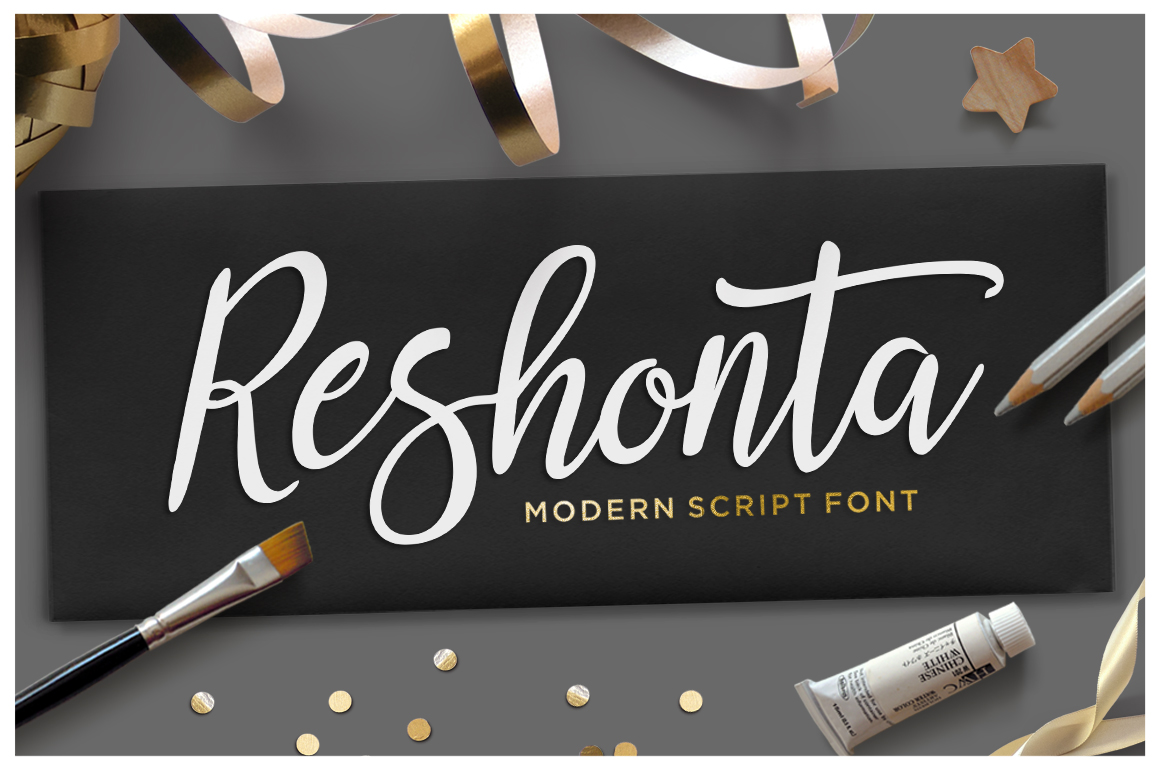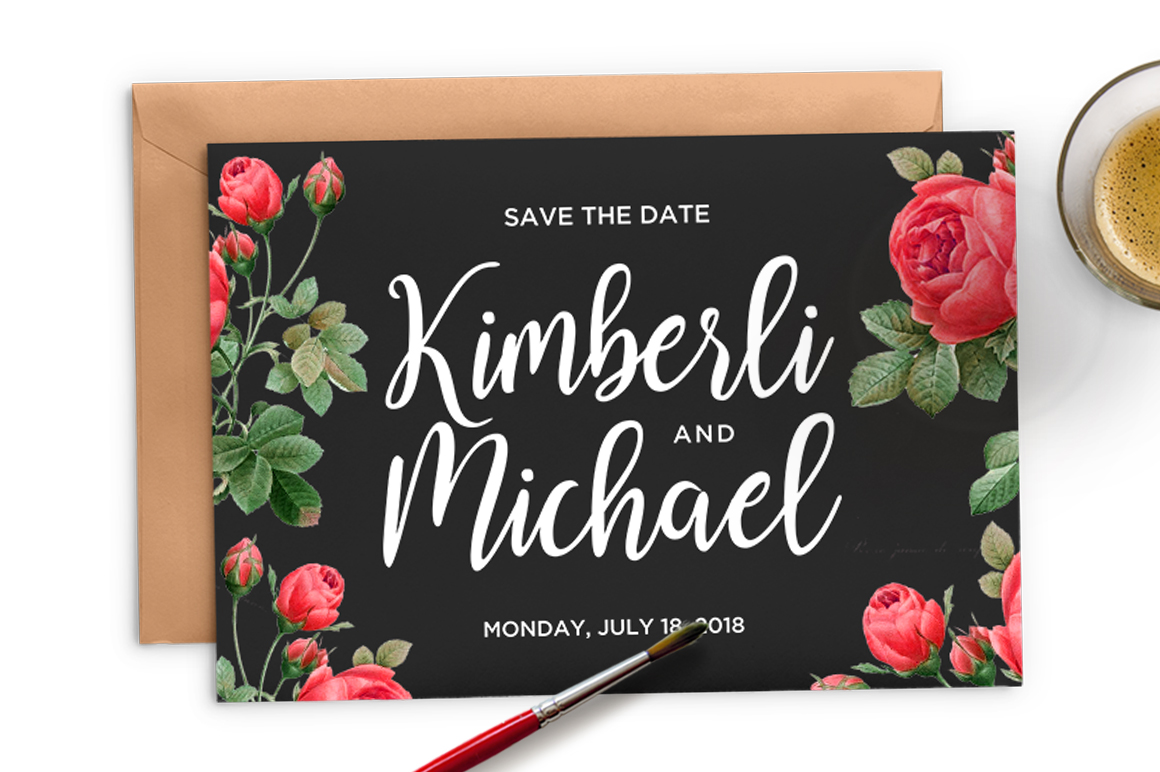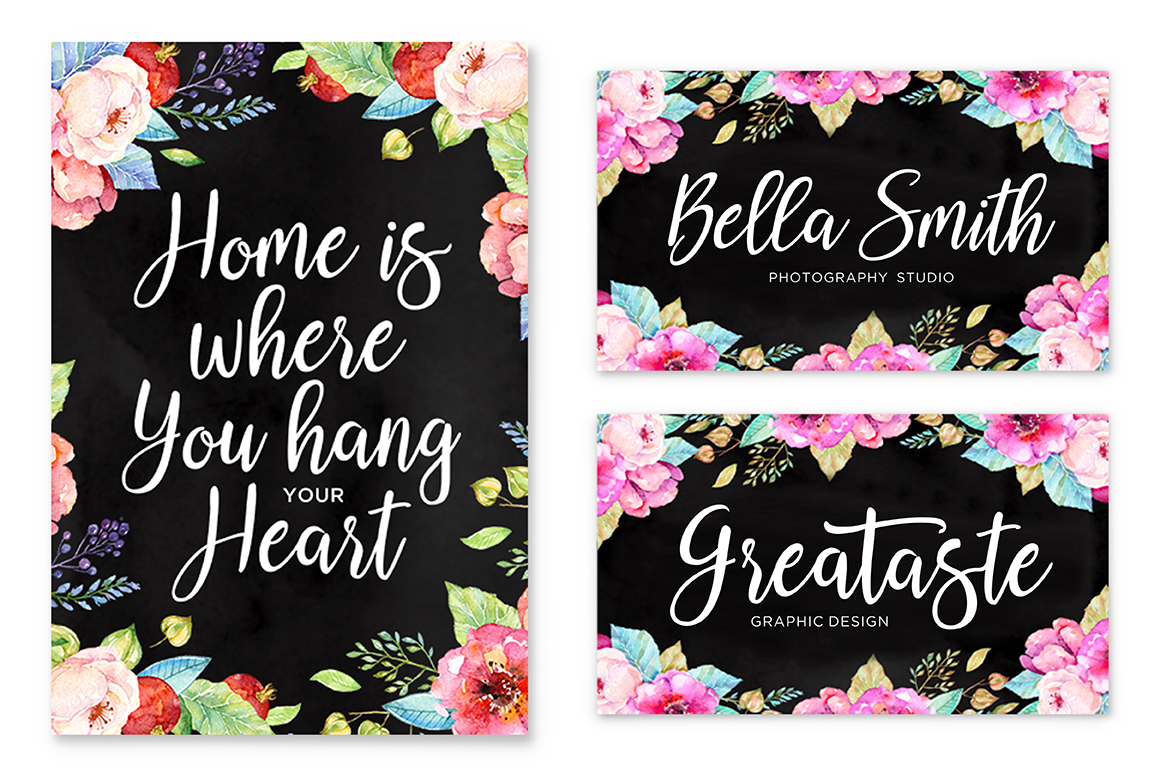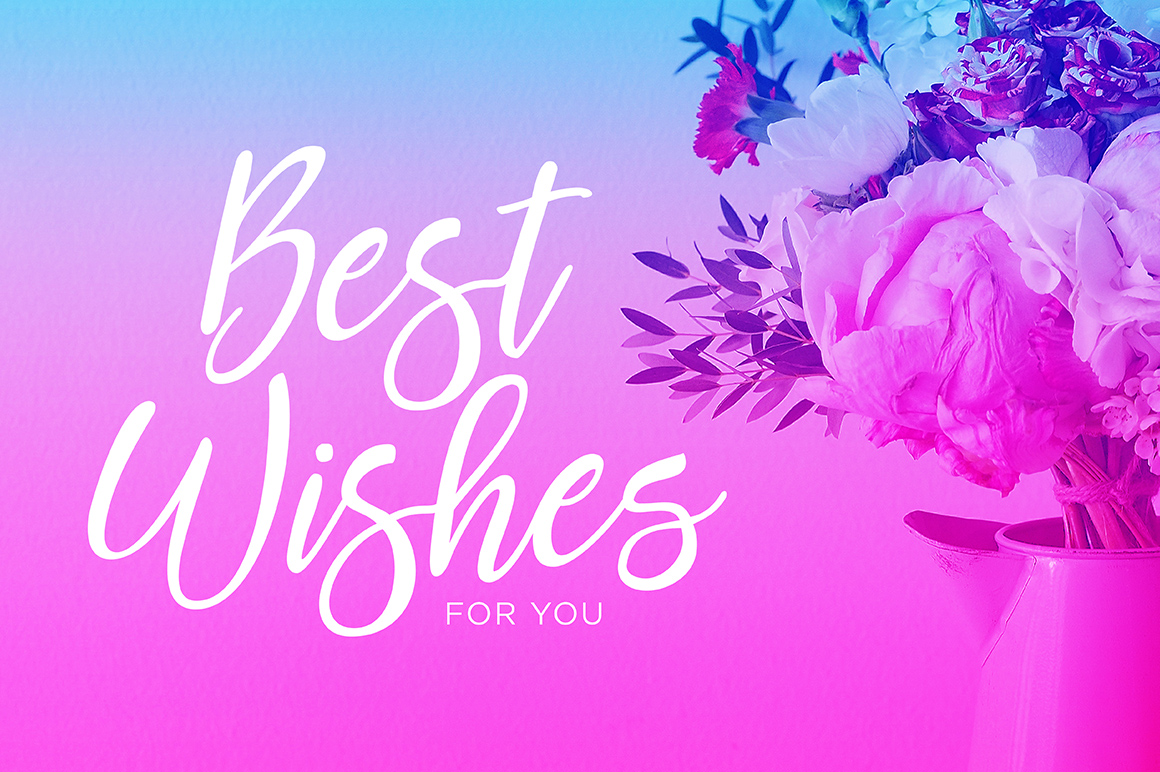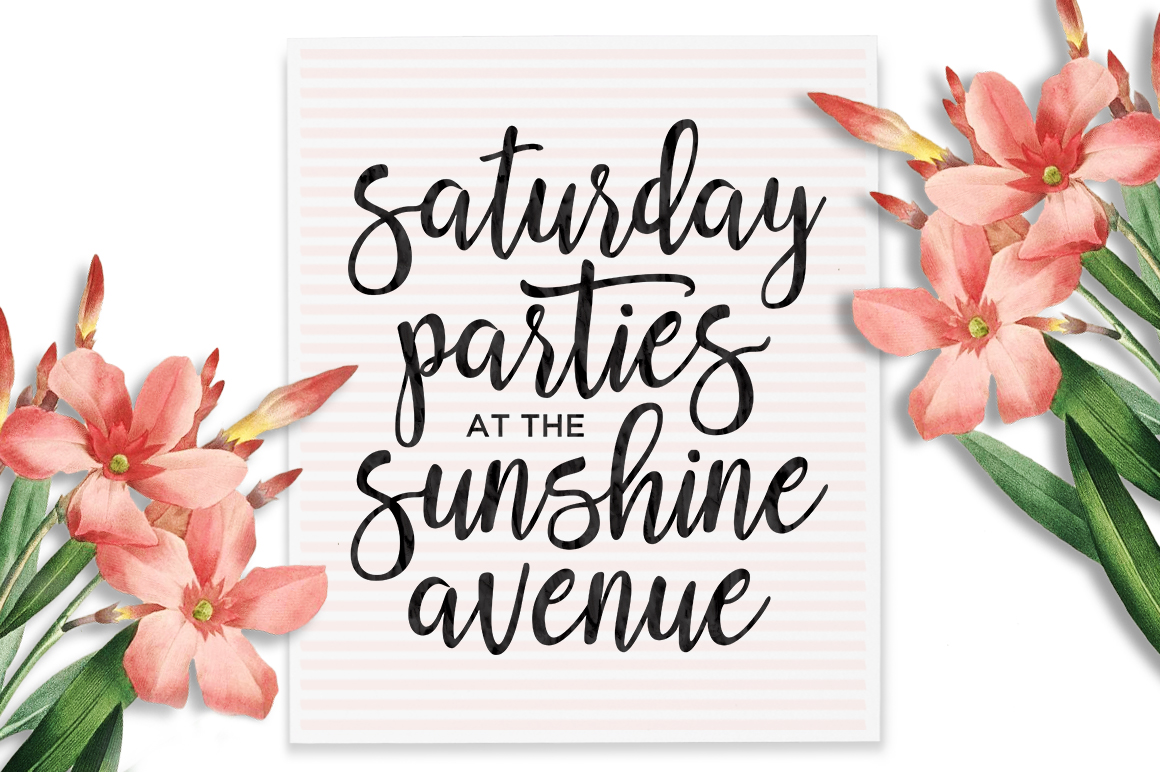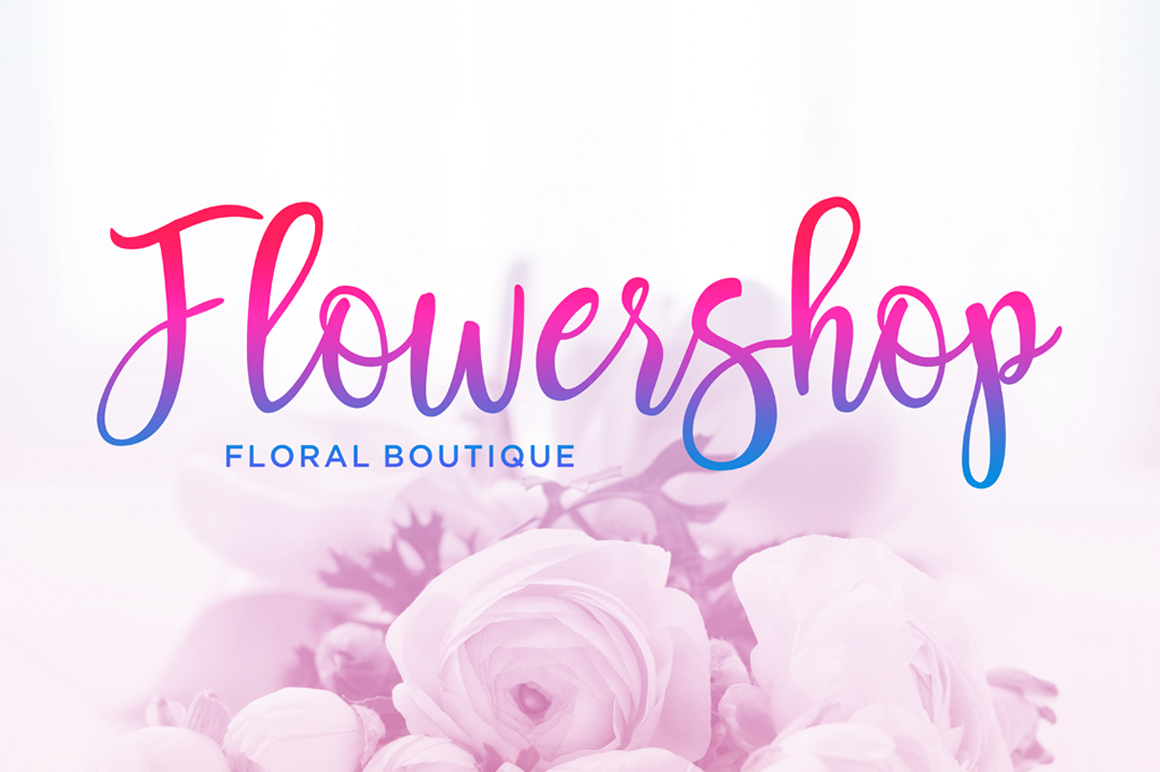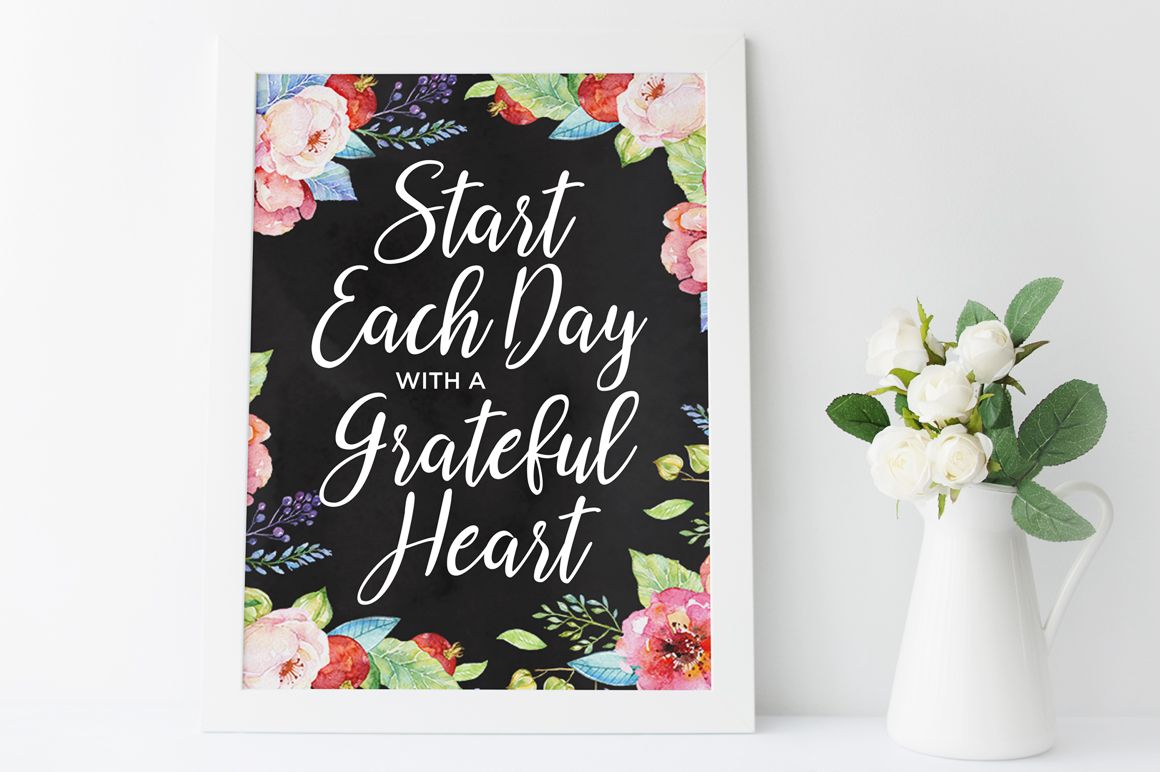
Reshonta Font
About Reshonta Font
Reshonta is a hand painted type, digitally perfected and turned into a bold handwritten font with a calligraphic style.